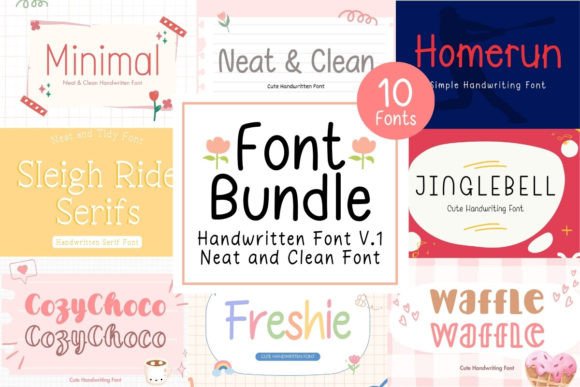
Handwritten Font Bundle
If you are looking for high-quality assets like Handwritten Font Bundle, this premium package is a fantastic choice for your creative projects.
Whether you are creating POD (Print on Demand) products, wedding invitations, or social media graphics, Handwritten Font Bundle is an ideal fit.
Expert tip: Combine these elements with complementary fonts to create unique, eye-catching designs that stand out in the market.